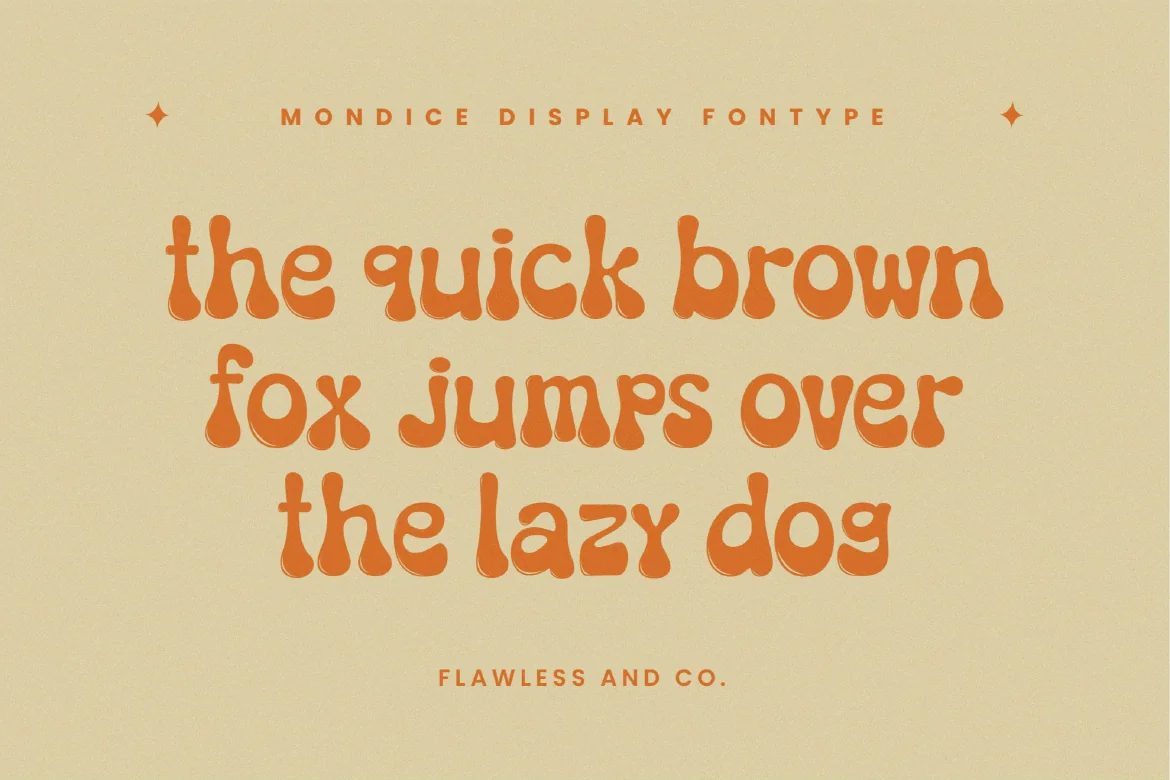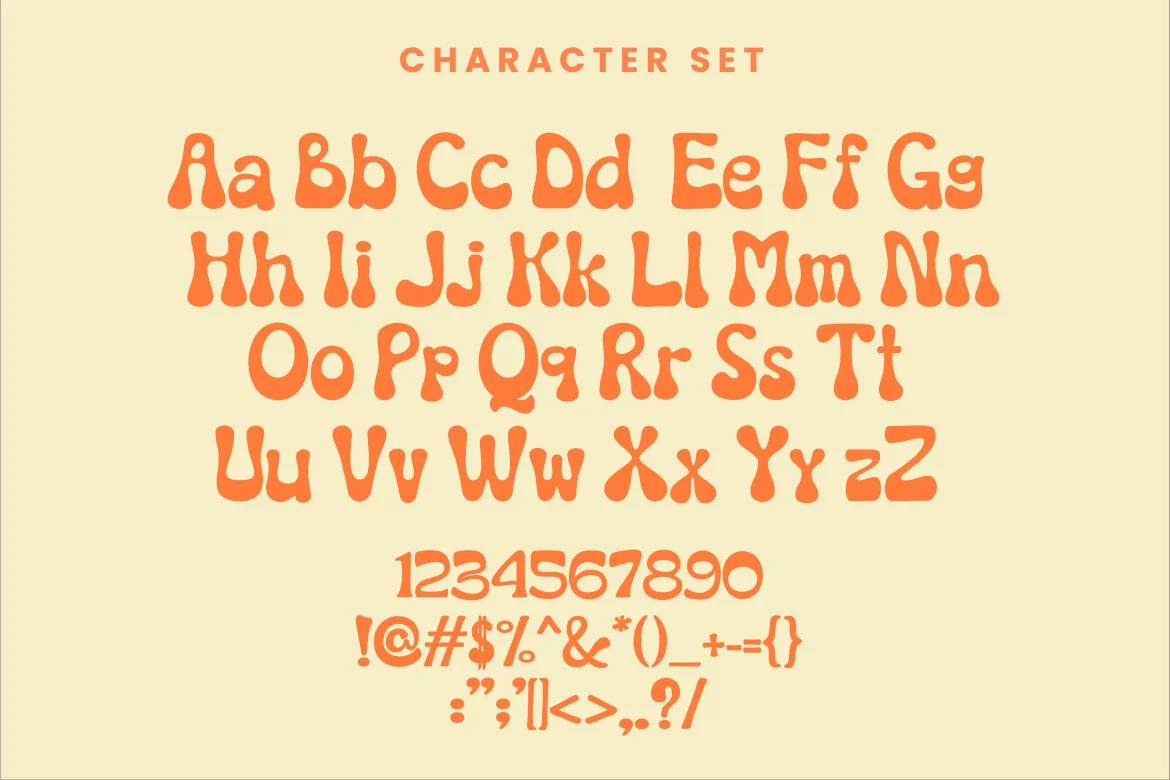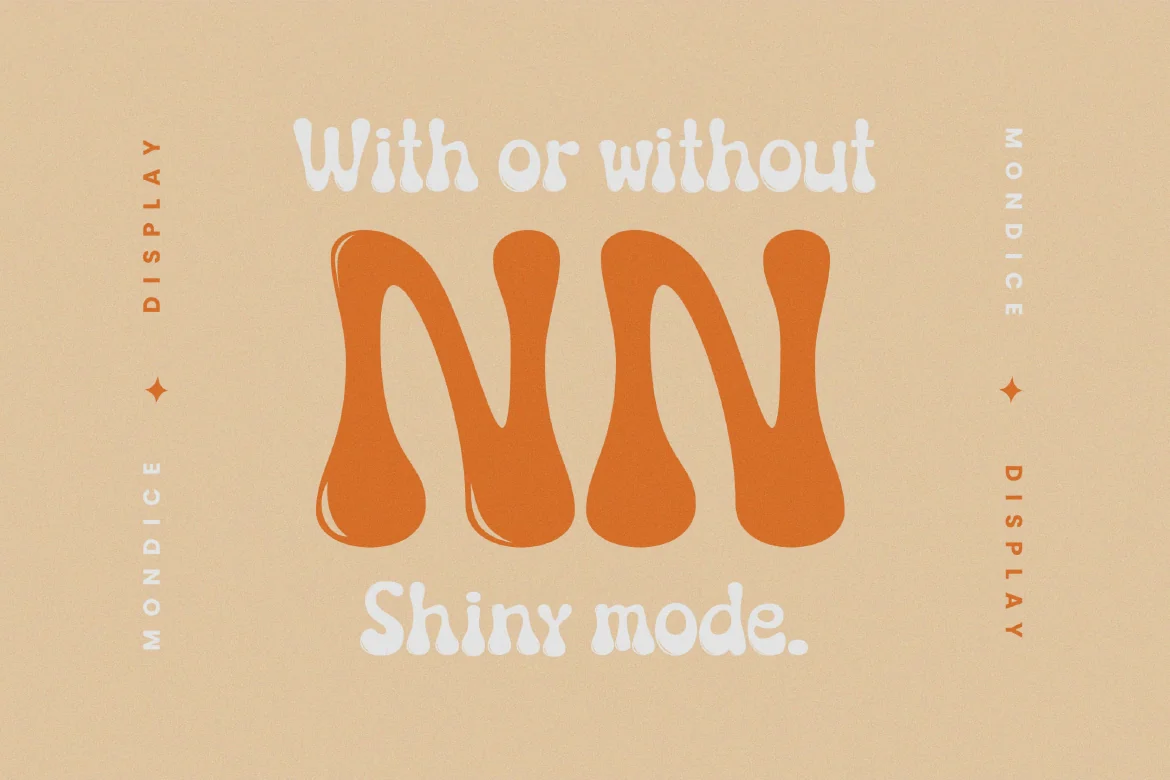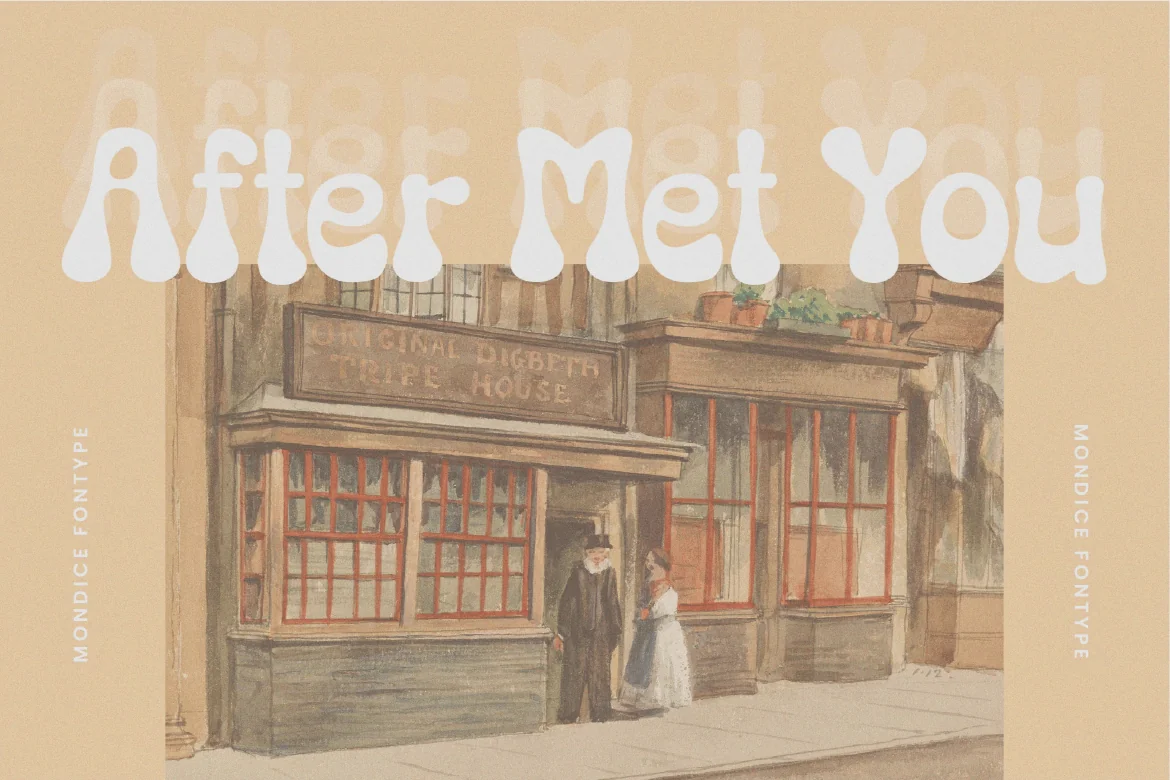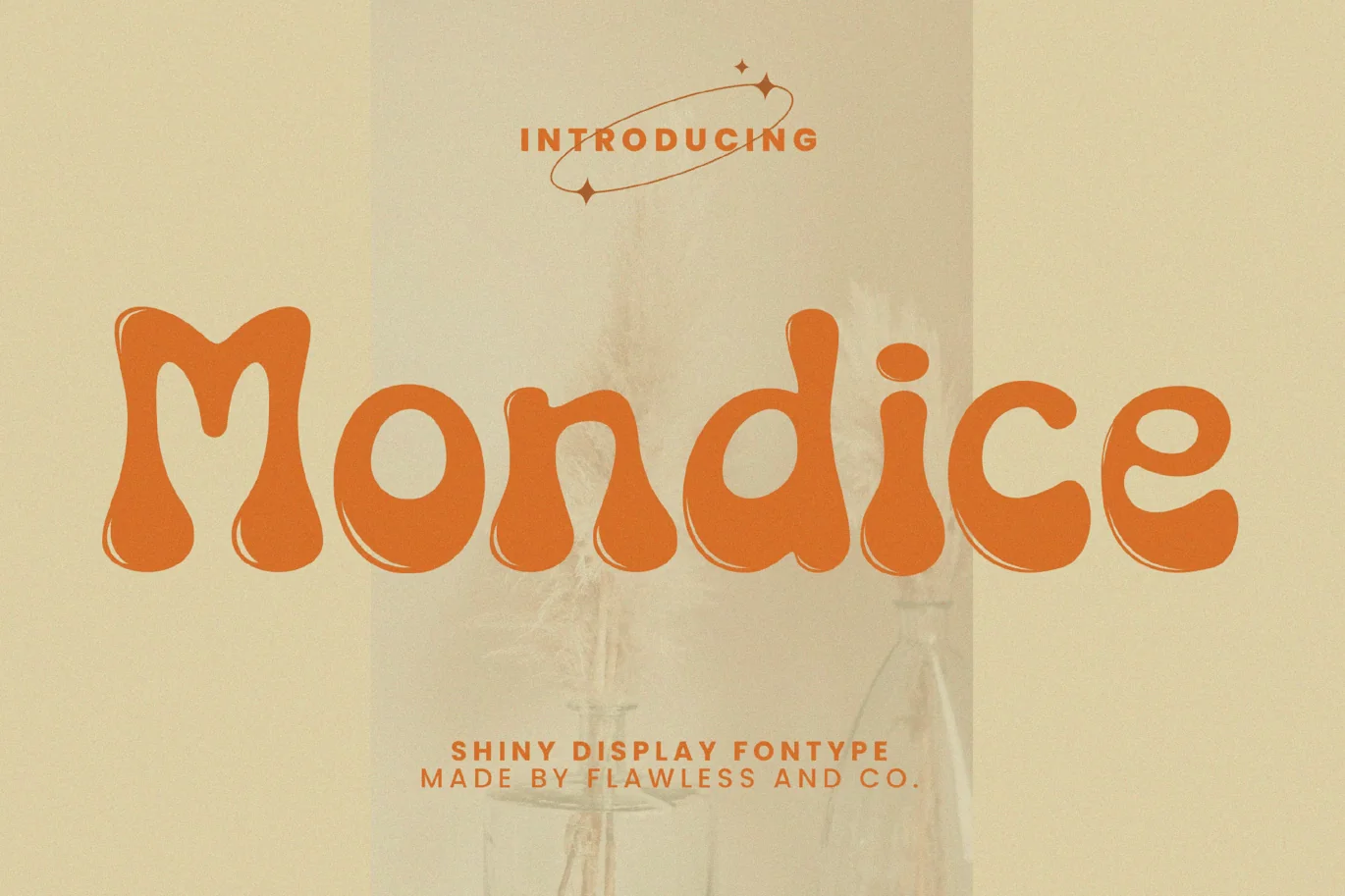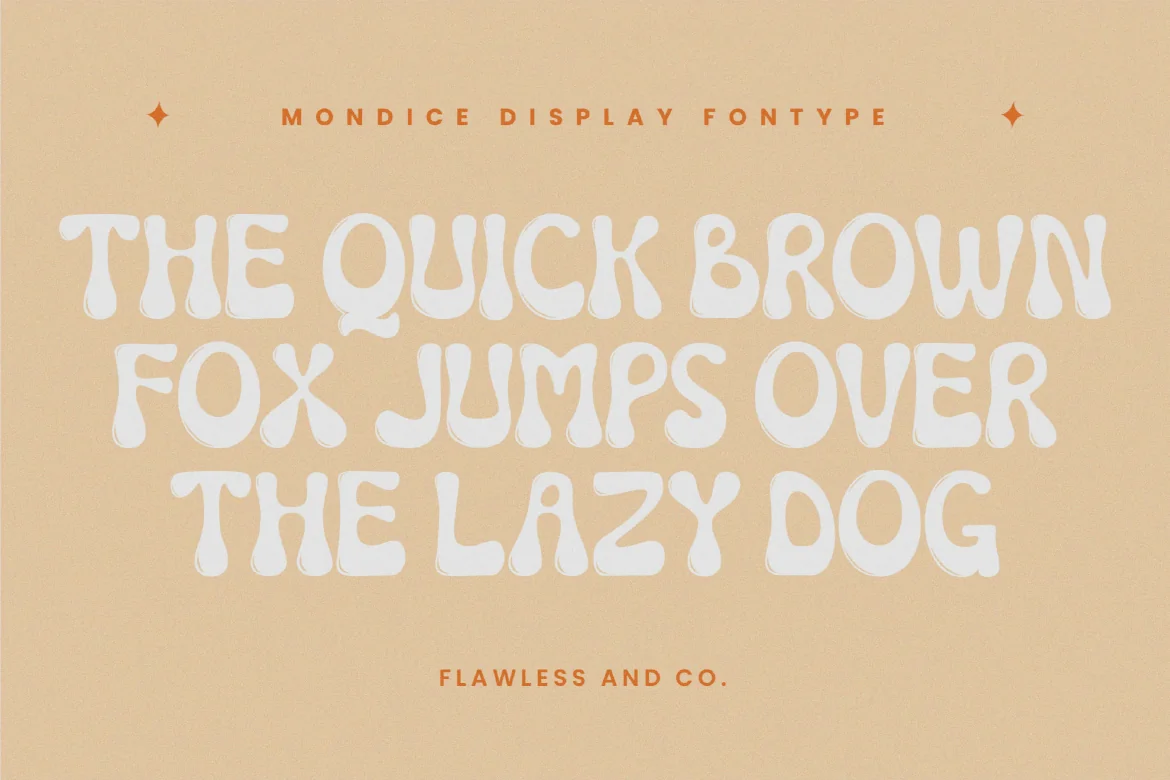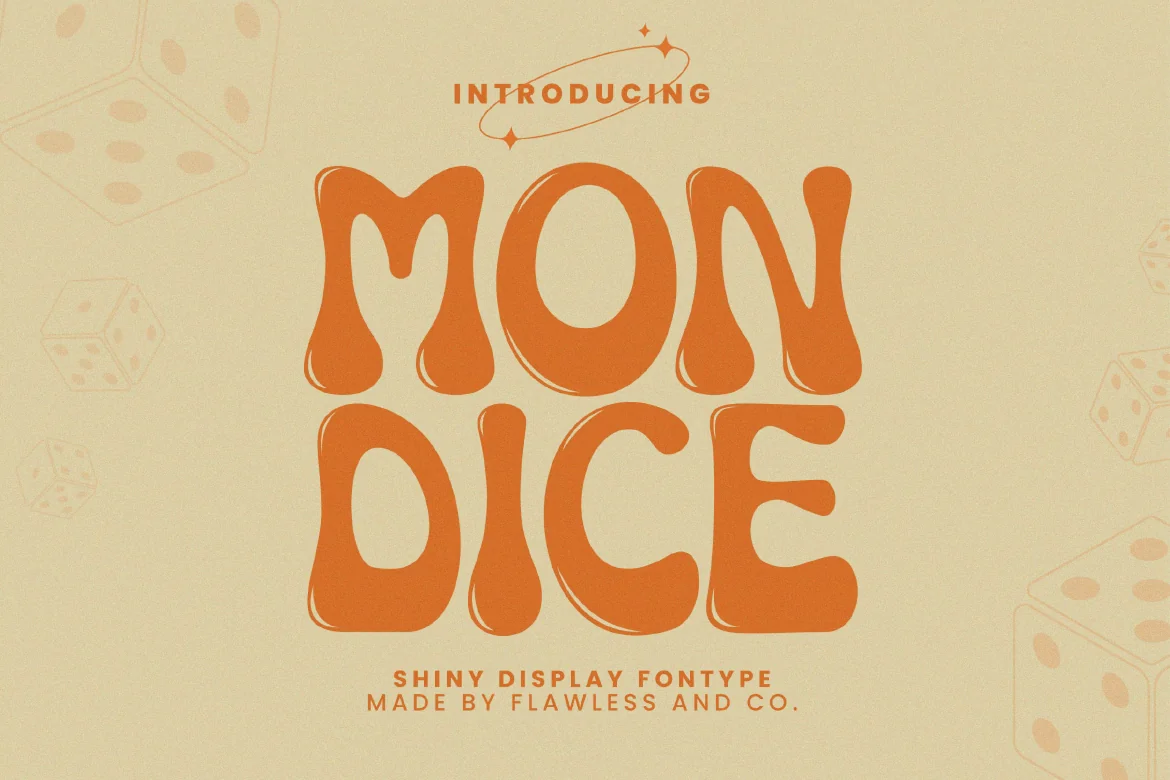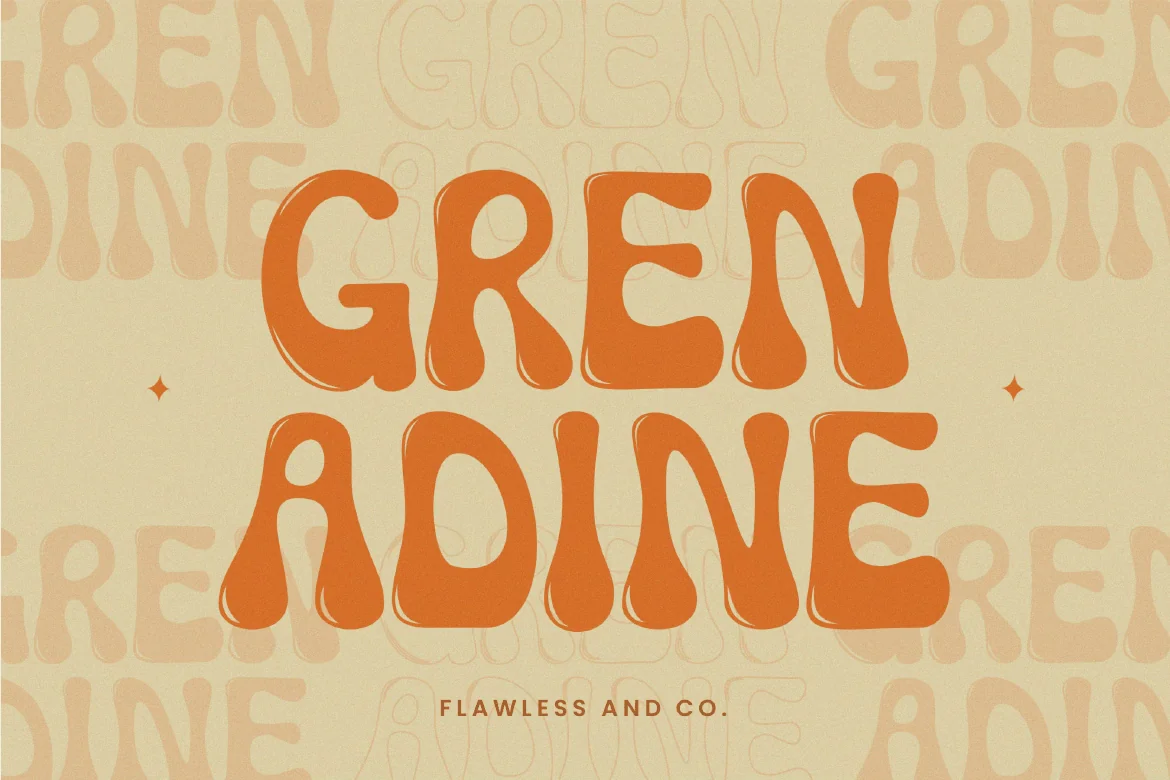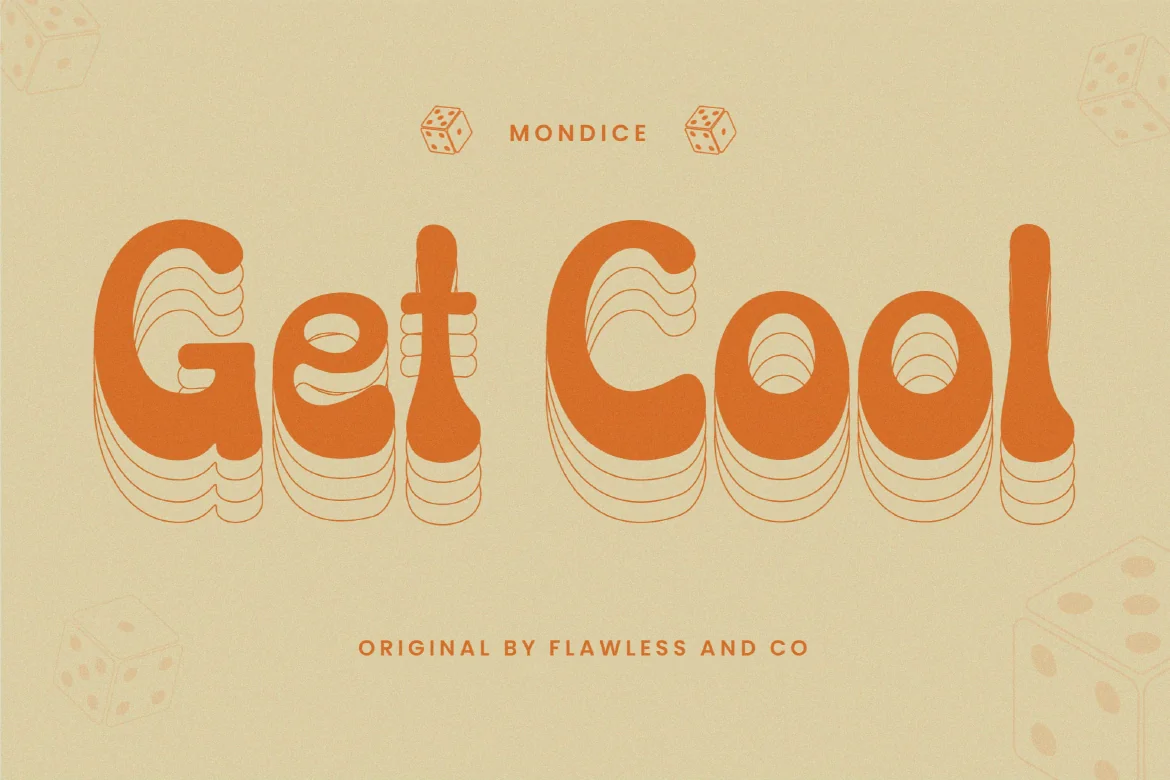
Mondice Groovy retro Font
Introducing our new “Mondice” Modern Retro with Fun and Elegant Style. This font is perfect for any graphic design such us branding, logos, invitations, master heads, t-shirts, photography, and more.